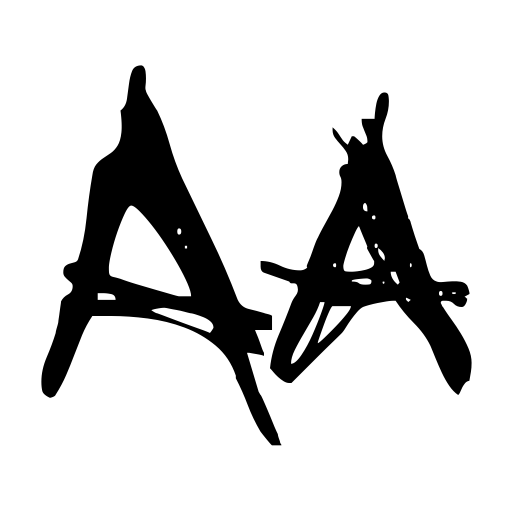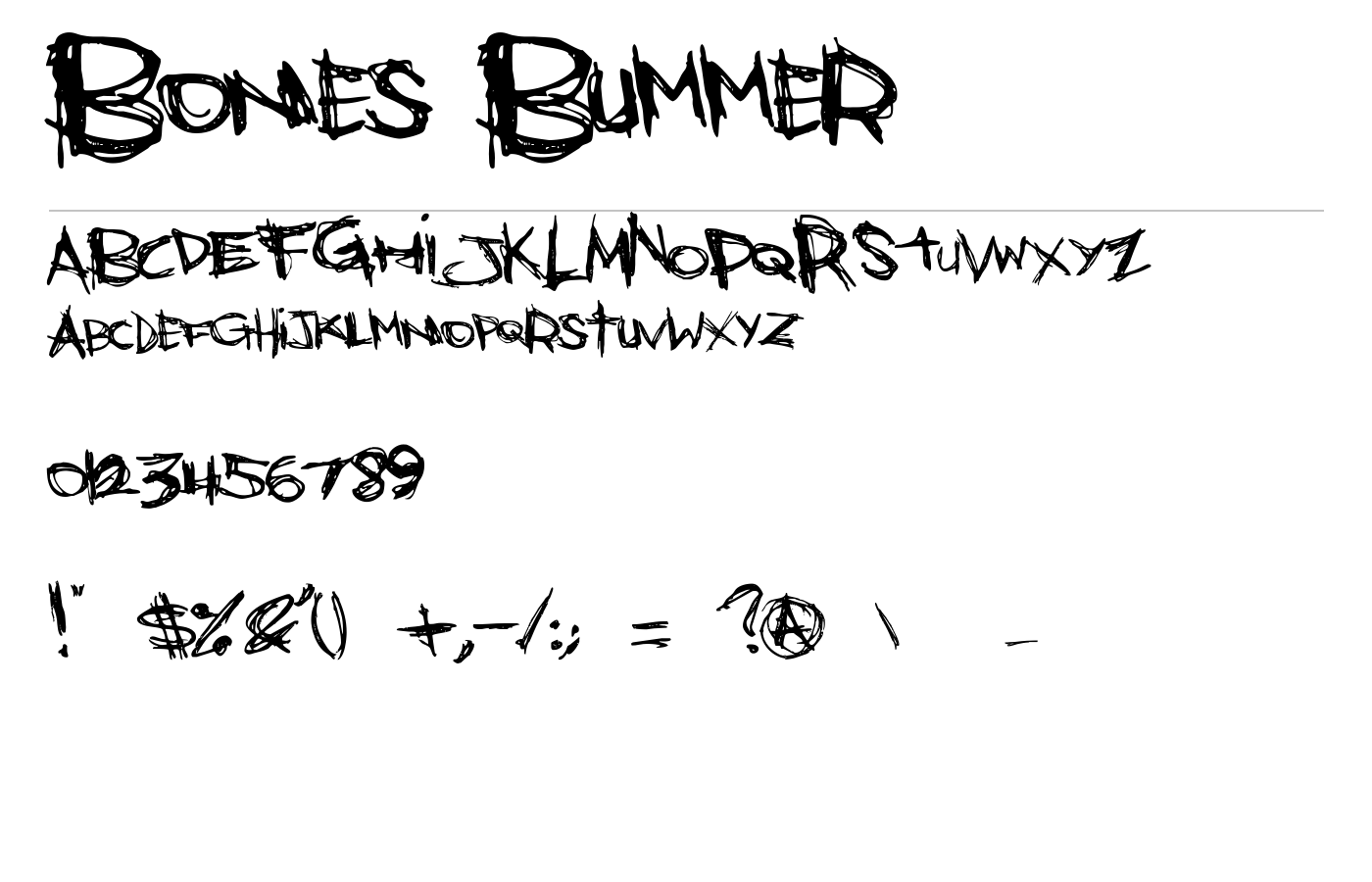
Bones Bummer is a dynamic, hand-drawn font with a raw, edgy style that feels chaotic and expressive. Its irregular strokes and sketchy, almost graffiti-like forms give it a rebellious and energetic personality, making it ideal for creative projects that want to convey a sense of youthful defiance or underground culture. This font works best for bold headlines, posters, branding in alternative fashion, music, or urban art where a strong, unconventional visual impact is needed.
Bones Bummer Font
About Bones Bummer Font
| Designer | Damien Gosset |